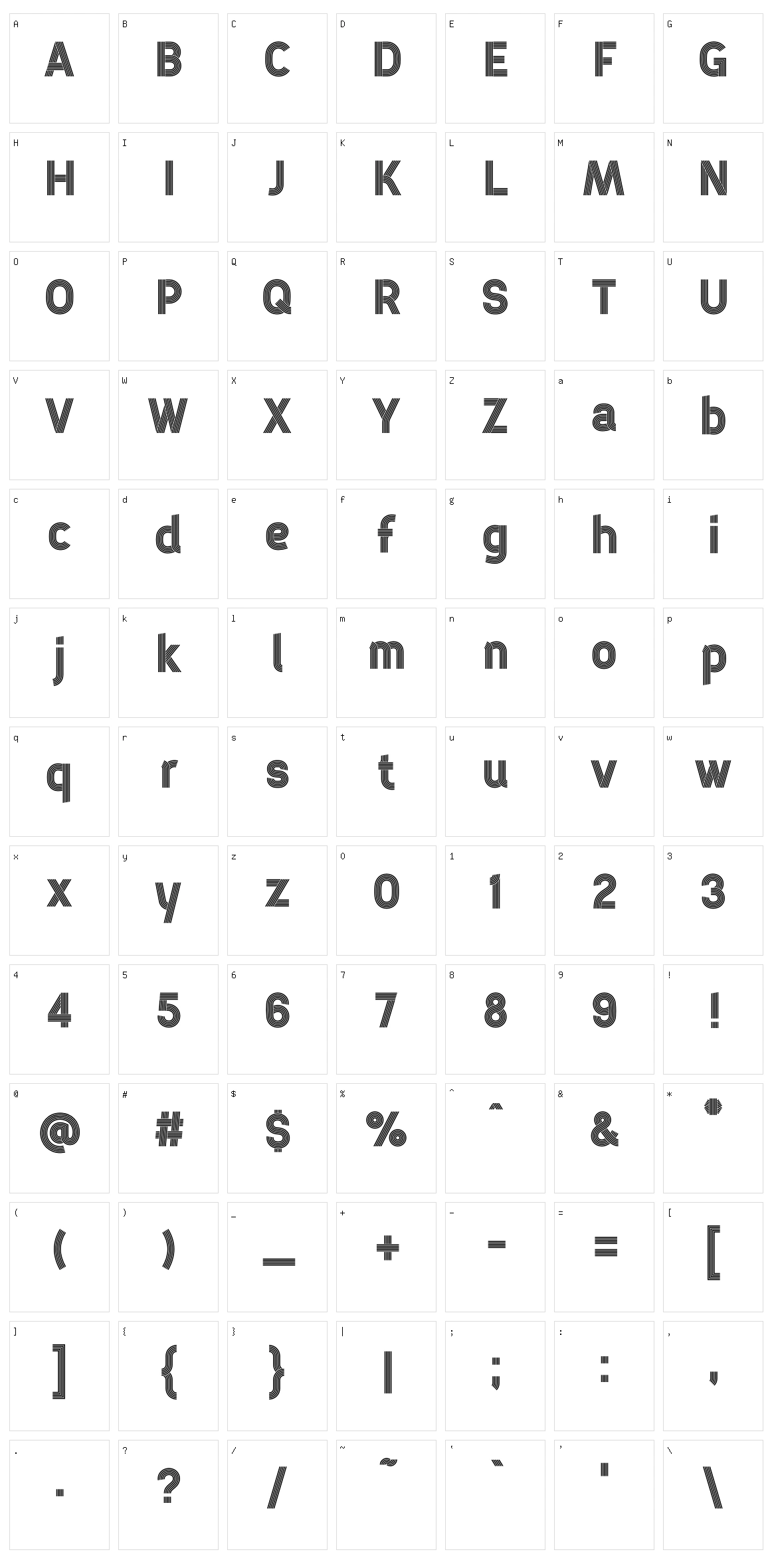
The free font Ridge is carefully designed by Studio Dot by dot, showcasing a thoughtful balance of creativity and usability and falls under the Groovy font style. When you download the ZIP file, it contains only 115.13 KB of font files, making it lightweight and quick to download. Please review the license details below to understand permitted usage and distribution rights. If license information is not available, we recommend using this font for personal projects only or contacting the author directly for commercial usage permissions.